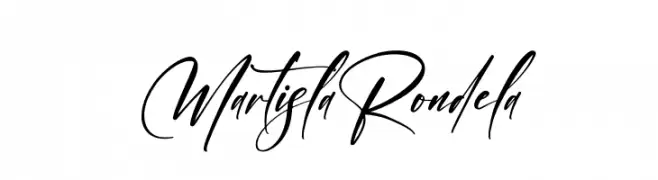
An elegant and flowing script font with classic cursive style.
An elegant, flowing script font with graceful curves and sophisticated flair.
A dynamic and elegant script font with flowing, cursive letterforms.
A sophisticated, cursive script font with elegant, flowing lines.
A dynamic and elegant script font with flowing, cursive letterforms.
A bold, expressive script font with flowing cursive letterforms.